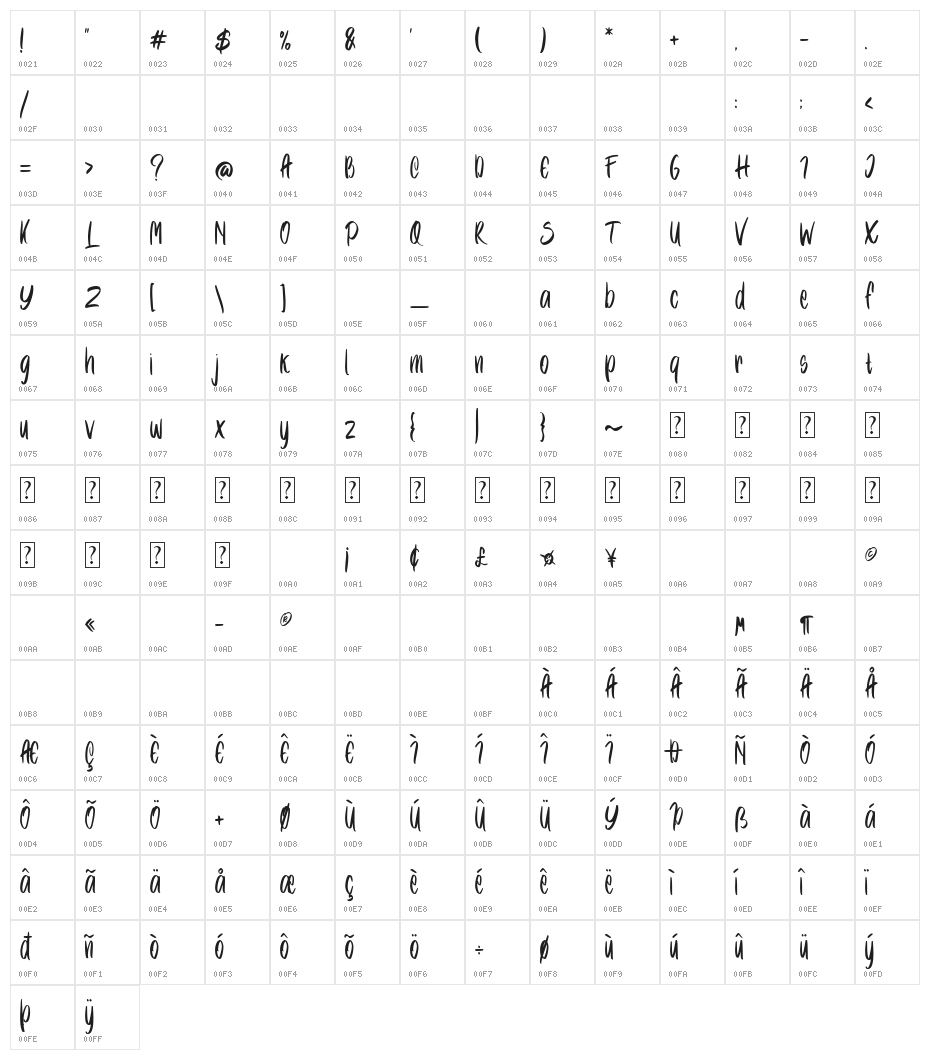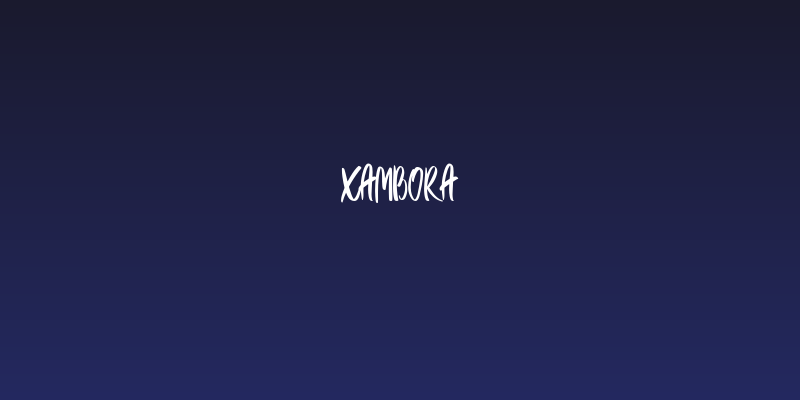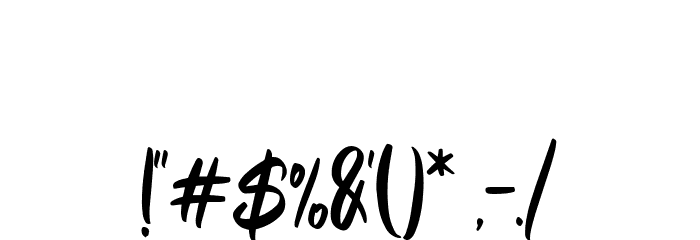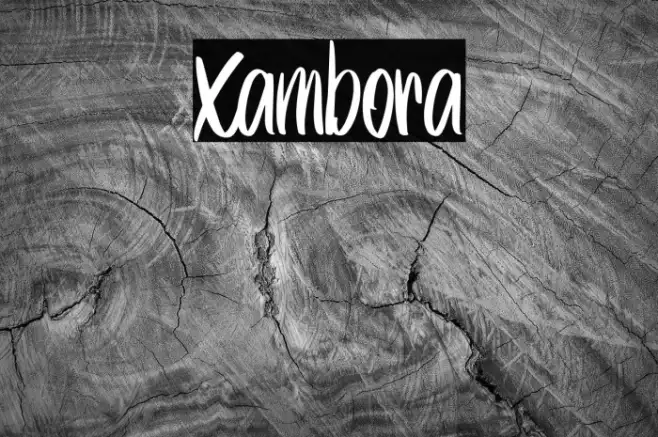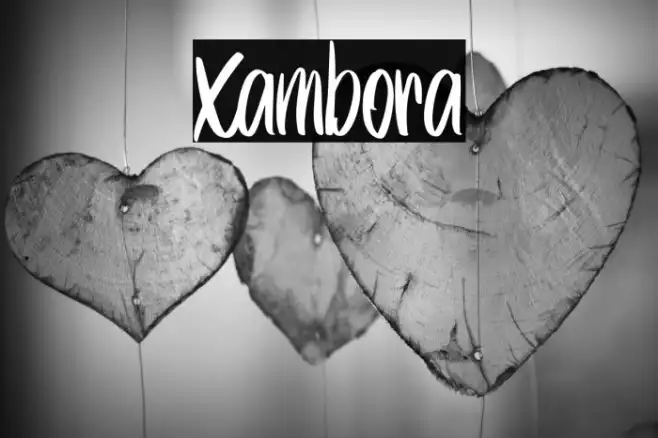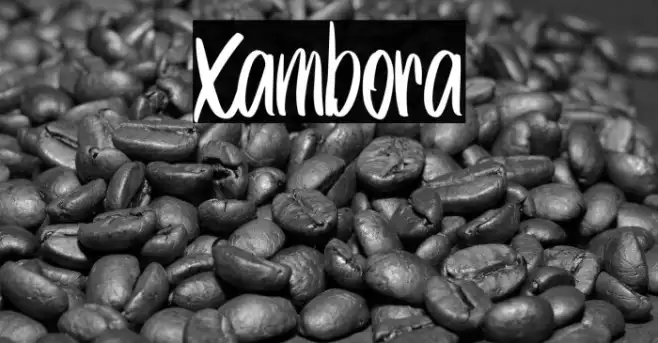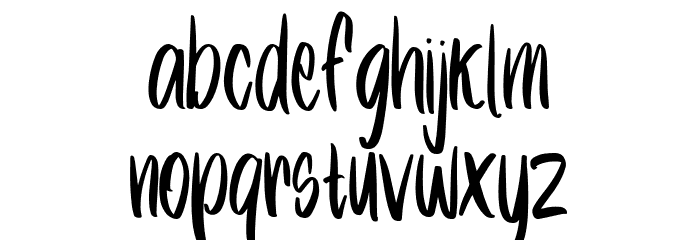
Xambora Font
Xambora Description
This font features a bold and expressive handwritten style, characterized by its fluid and dynamic strokes. The letters are slightly slanted, giving a sense of movement and energy. The uppercase and lowercase letters maintain a consistent style, with playful loops and curves that add a touch of whimsy. The numbers and special characters are designed to match the overall aesthetic, ensuring a cohesive look across all text. This font is perfect for projects that require a personal and artistic touch, such as invitations, greeting cards, and creative branding.
| Proposed Projects | Ideal for invitations, greeting cards, artistic branding, and creative projects. |